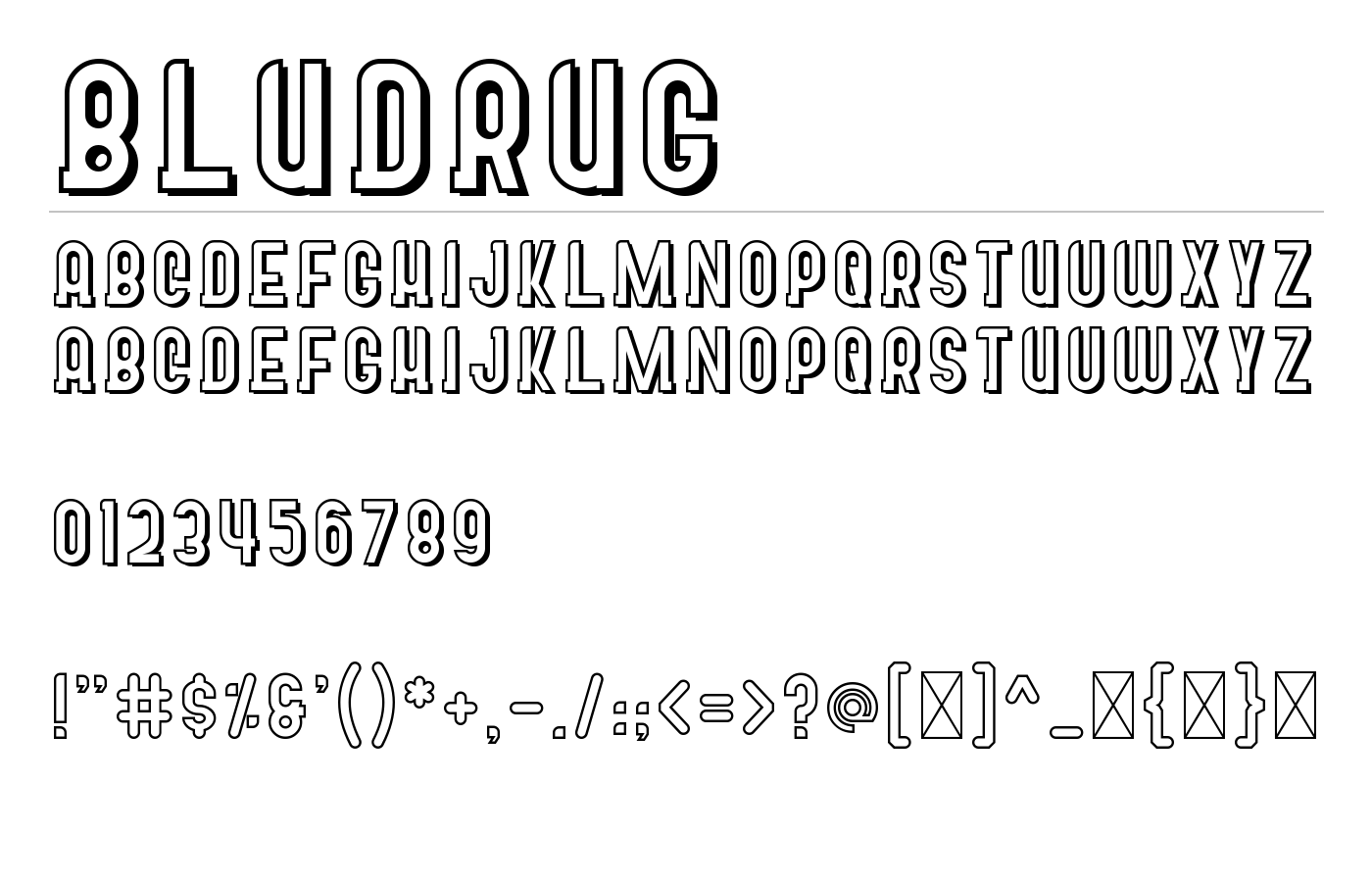
BLUDRUG is a bold, condensed sans serif font with a unique outlined, shadowed style that gives it a vintage yet modern industrial feel. Its tall, narrow letterforms with consistent stroke weight and geometric precision make it ideal for eye-catching headlines, logos, and packaging where a strong, playful character is desired. This font works especially well for brands or projects seeking a retro-inspired, impactful look with a distinct visual presence.
BLUDRUG Font
About BLUDRUG Font
| Font family | BLUDRUG Font |
| Designer | Gilang Ternadho |